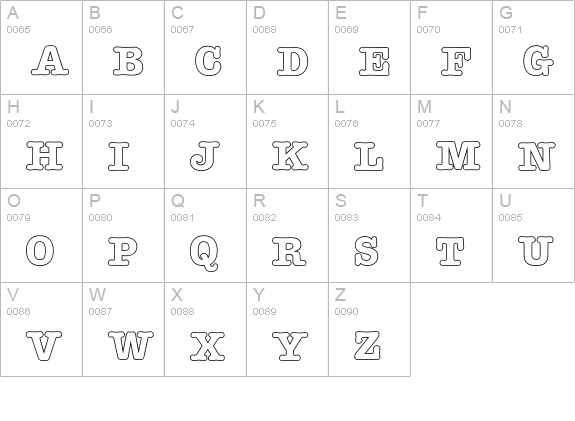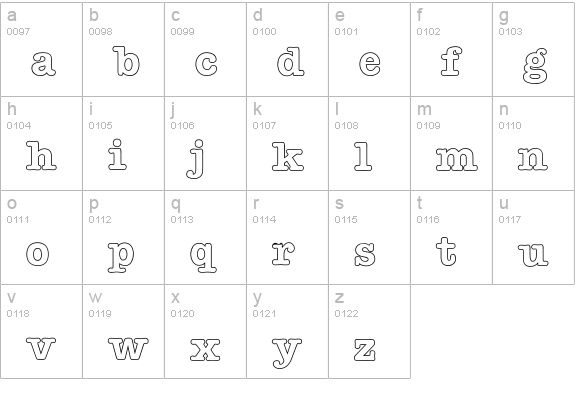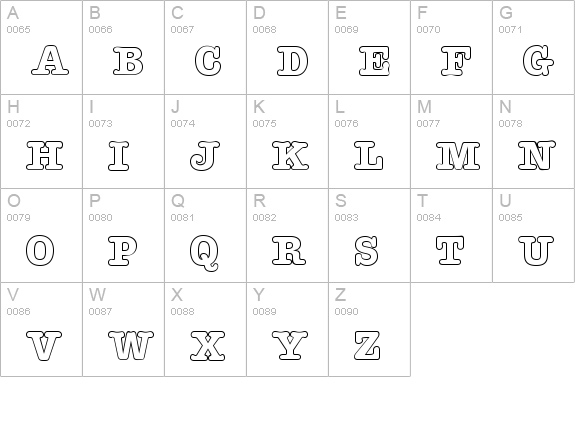
AmericanTypeOutline Font Details
AmericanTypeOutline is a classic and versatile font that exudes timeless elegance and sophistication. With its clean lines and sharp edges, this typeface is perfect for a wide range of design projects, from vintage-inspired posters to modern logos. The bold and strong appearance of AmericanTypeOutline makes it stand out and grab attention, while still maintaining a sense of refinement. What makes AmericanTypeOutline even more appealing is that it is available for free download at FontsMarket.com. This means that you can easily access this high-quality font without any cost, making it a valuable addition to your font collection. Whether you're a professional designer looking for a reliable font or a hobbyist seeking to enhance your creative projects, AmericanTypeOutline is a fantastic choice that won't disappoint. Download it today and explore the endless possibilities that this font has to offer.